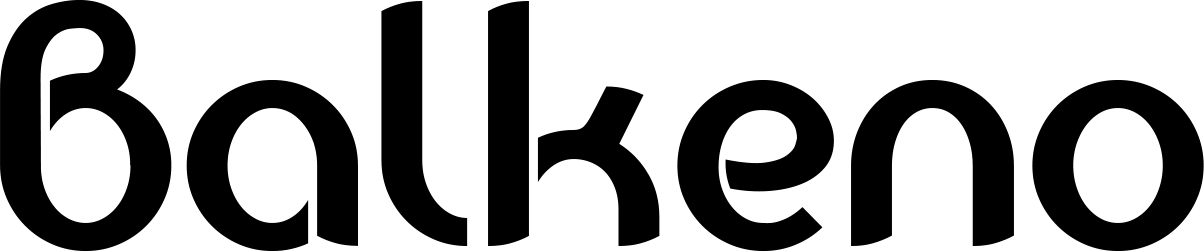
Balkeno Font
Count on this modern and rounded as a preference and carry out a more engaging, approachable, and friendly feel for your typography by utilizing Balkeno. It contains mixed-case alphabet letters, numbers, and a few punctuations, enough to create the ideal text design you wish for!
Balkeno is the best option as it offers characters that are satisfying enough for places such as websites, articles, apps, Instagram posts, logos, and wherever you require a bold and futuristic look.